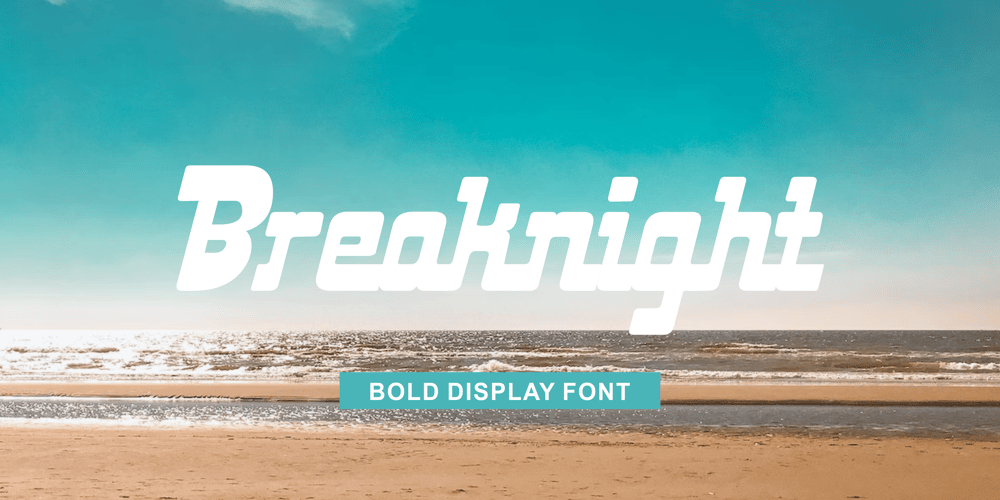
Breaknight
Breaknight font
Breaknight Font Family was designed by Zamjump and published by Zamjump. Breaknight contains 1 styles and family package options. Breaknight is a bold, italic style display font, with a futuristic twist keeping the simplicity and unique shape. Breaknight can be used in various projects, such as product branding, logos, apparel greeting cards, sneakers, billboards, video graph, magazines, sports, and many others. give it a try you will definitely find more,….